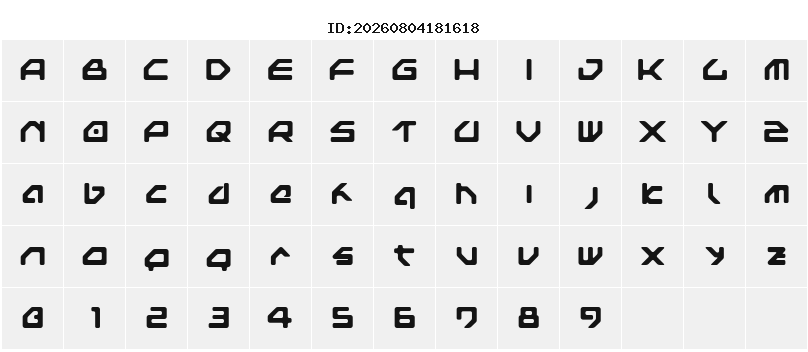
NextGames Preview
• Font Name: NextGames
• Font ID: Macromedia Fontographer 4.1J NextGames
• Full Font Name: NextGames
• Version: Macromedia Fontographer 4.1J 03.7.24
• PostScript Name: NextGames
• Character Count: 89
About NextGames.ttf
NextGames.ttf is a modern, elegant sans-serif font designed for ultimate readability and visual harmony. Perfect for branding, headlines, web design, and print materials.